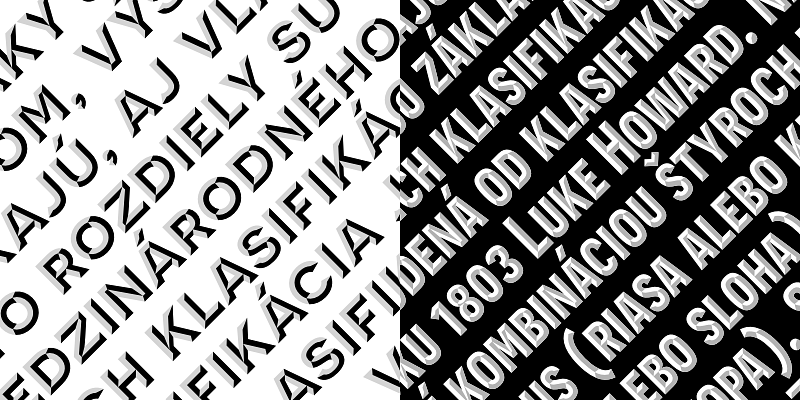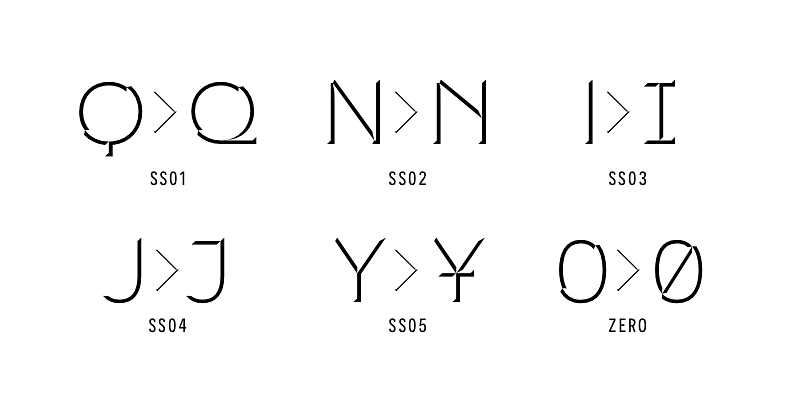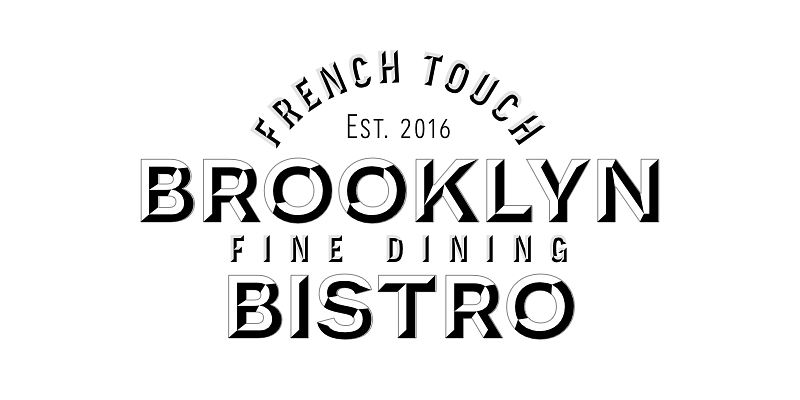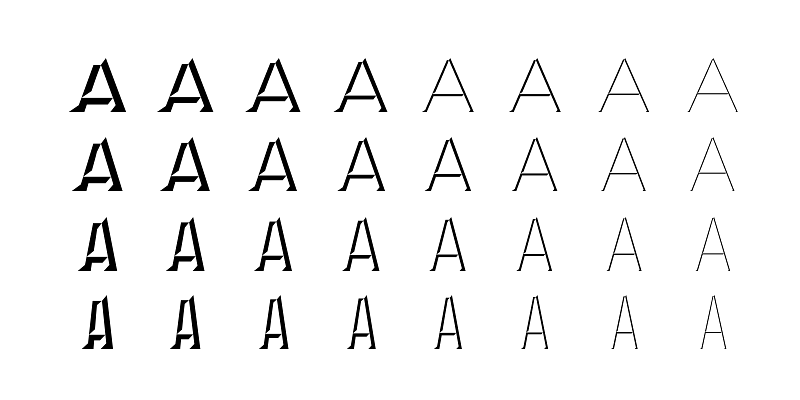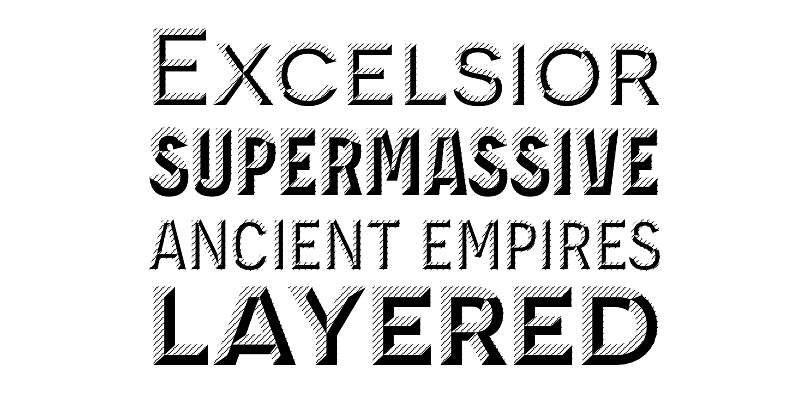
Pair with Novecento Sans as a base layer for endless possibilities!
Each glyph of each style of Novecento Carved (around 18,000) was manually reviewed and adjusted to overcome the limitations of an automatic interpolation algorithm. The minimalism of its construction makes it super easy to achieve a bas-relief or engraving effect just switching luminosity values among the two layers (carved and sans).